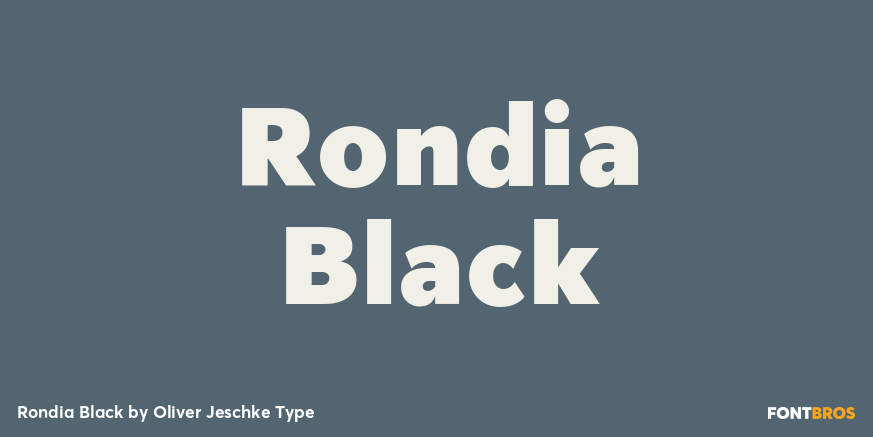
Rondia
Font Family by Oliver Jeschke Type
Buy NowWith its precise proportions and timeless character, Rondia brings modern elegance to every composition. A versatile typeface family created for both expressive headlines and sophisticated visual systems.